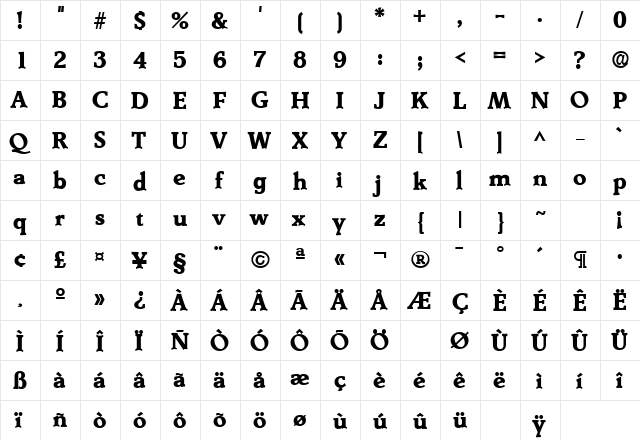
DerringerLH Bold
Design Context for DerringerLH Typeface
DerringerLH is a composed and adaptable typeface that performs quietly and consistently across a wide range of design contexts. The heavy weight commands attention and anchors typographic hierarchies.
Pro Tip: Use DerringerLH in both headline and body roles to test its range before committing to a single application.